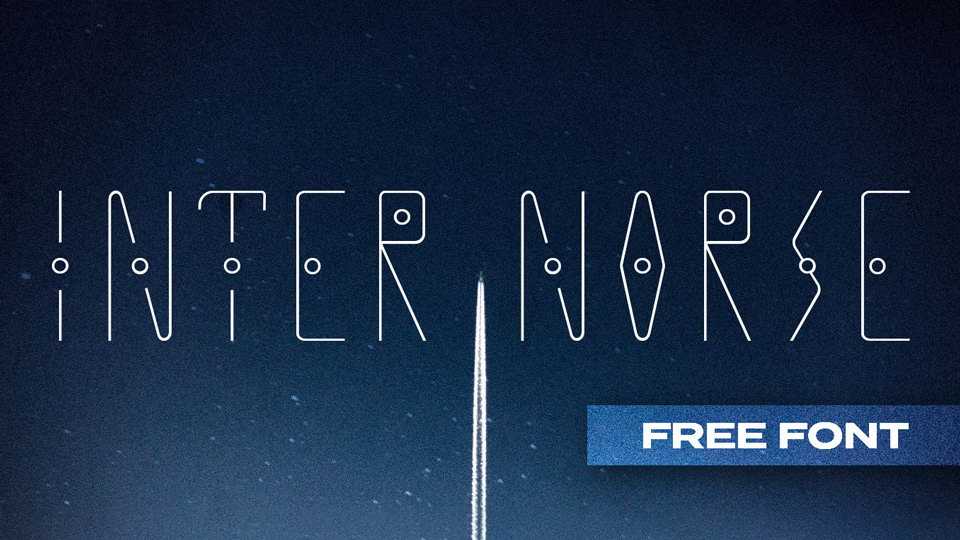
Download Inter Norse is a unique display typeface with a futuristic look. Inter Norse is perfectly suited for a space mood, future tech projects and innovative products.